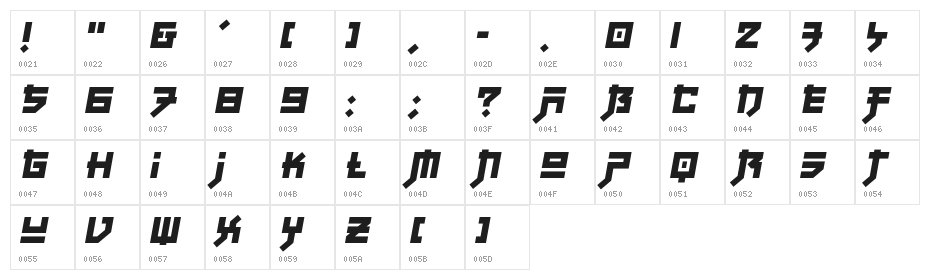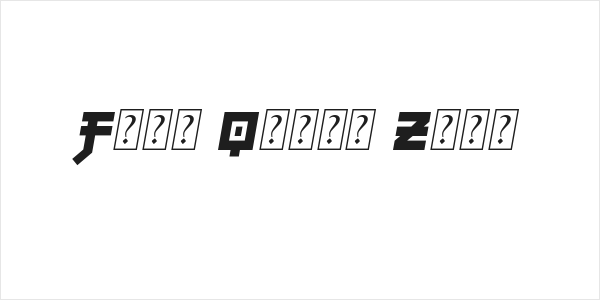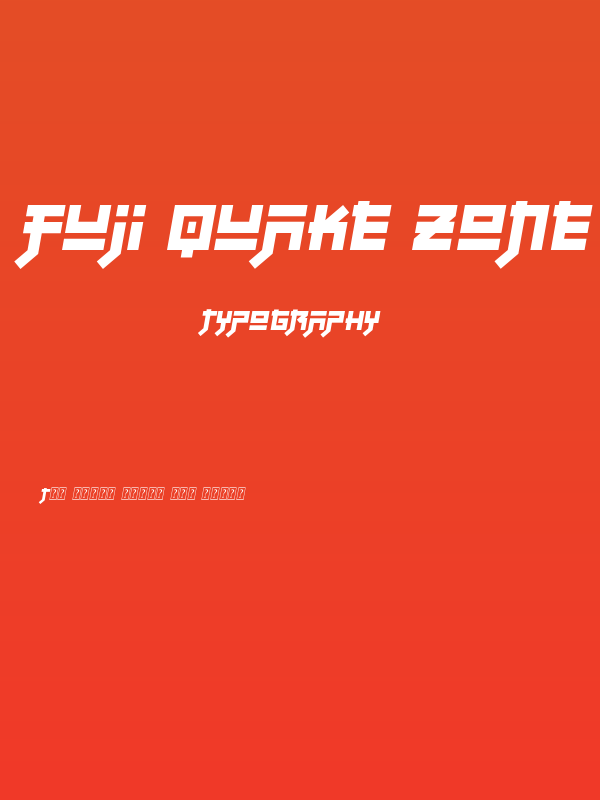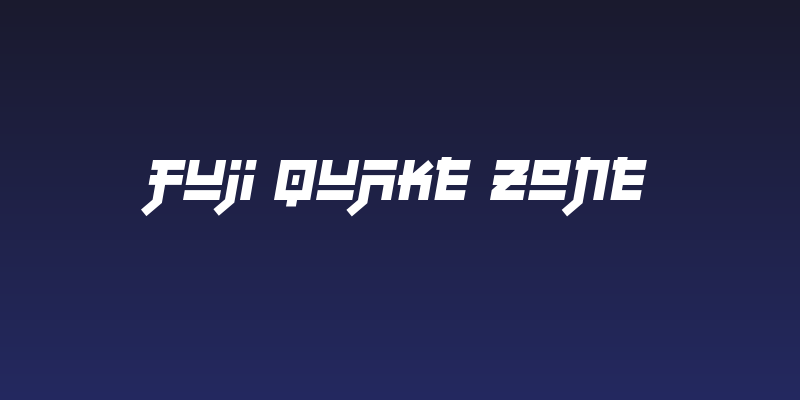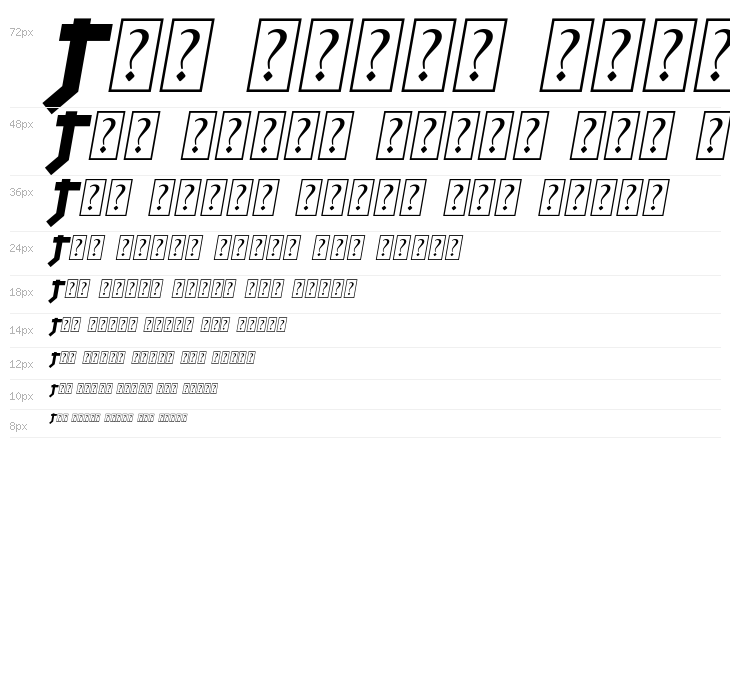
Fuji Quake Zone Font
Fuji Quake Zone Description
This font features a bold and angular design, characterized by sharp edges and a futuristic aesthetic. The letters are constructed with a geometric precision, giving them a dynamic and edgy appearance. The uppercase and lowercase letters maintain a consistent style, with the same angular cuts and bold strokes. Numbers and special characters are equally bold and maintain the same geometric style, ensuring uniformity across all characters. The font's unique style makes it stand out, suitable for projects that require a modern and impactful look.
Proposed ProjectsIdeal for video game titles, sci-fi movie posters, technology branding, and edgy graphic design projects.